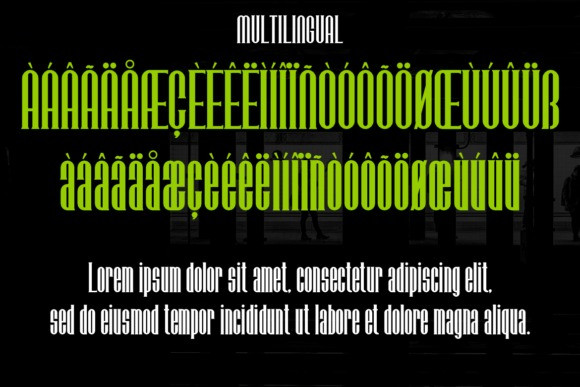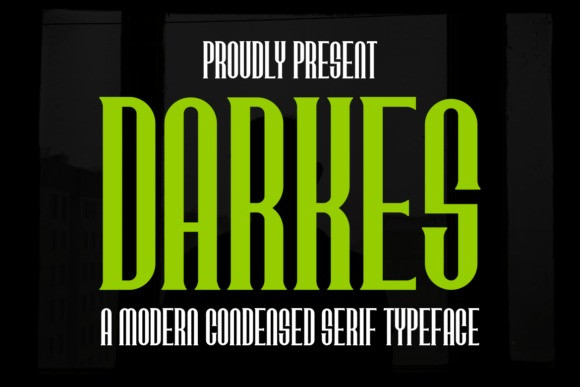
Darkes Font
Darkes Font – Condensed Serif Font – Modern Font is a bold and authentic display font. The font is suitable for any branding project like logo, template design, esport, and many more. outstanding in a wide range of contexts.